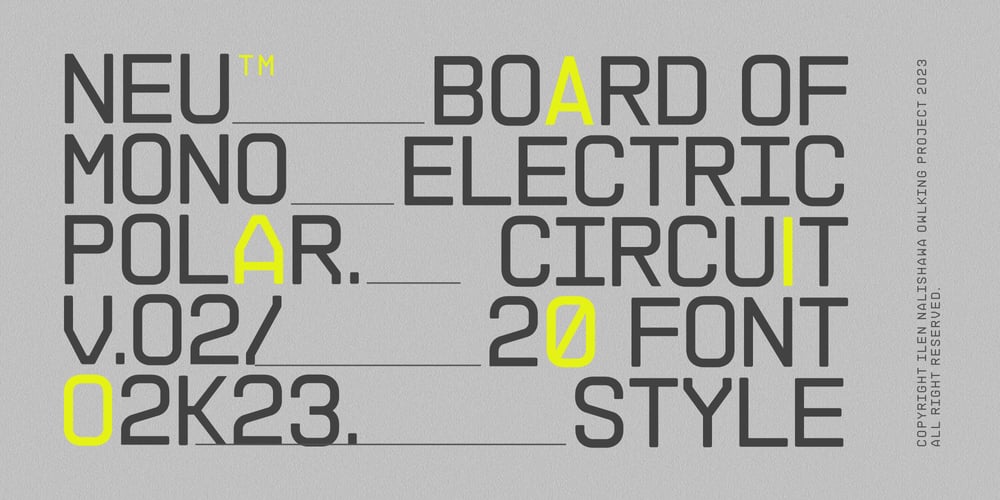
Neumonopolar Font Family was designed by Darhilen and published by Owl king project. Neumonopolar contains 20 styles and family package options. Neumonopolar is designed a little more smoothly, with perfectly curved edges, in this version the Neumonopolar looks more relaxed in shape and even more beautiful if rearranged in short paragraphs.Neumonopolar is still designed in a mono font style, with 20 styles including italics. Neumonopolar in addition to text headers, also works well for body text. Hopefully, Neumonopolar further complements the style and provides a wider exploration of fonts with a futuristic style.Enjoy Happy designing __